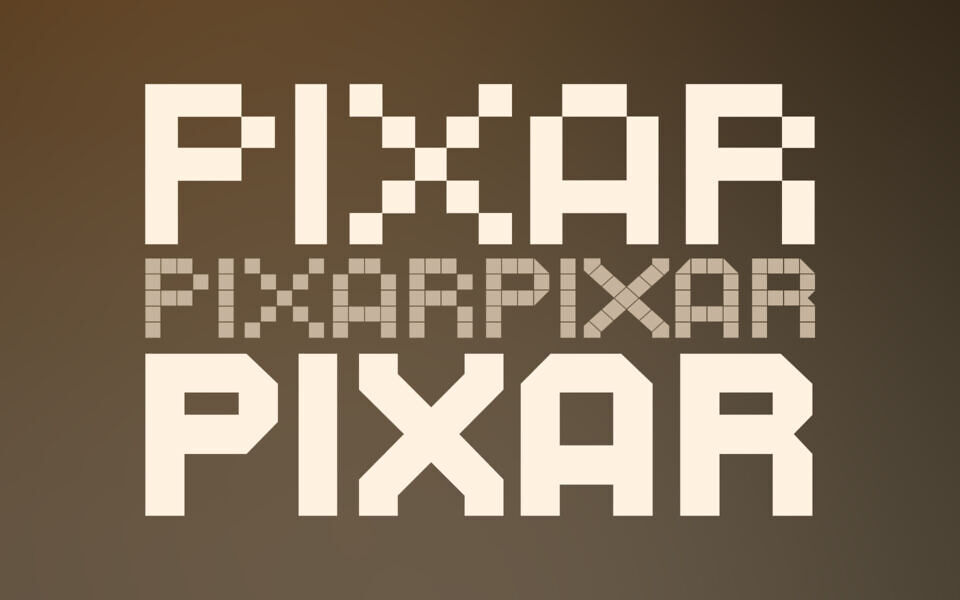
Pixar is a versatile font family featuring two distinct styles. “Pixar One” captures a retro, 8-bit feel with its clean pixelated design. “Pixar Two” offers a modern, blocky, and geometric sans-serif look.
Each style includes Regular, Bold, and unique Display variations, perfect for creating striking headlines, logos, and posters. This modular and stylish font pack is ideal for projects needing a touch of digital or architectural flair.